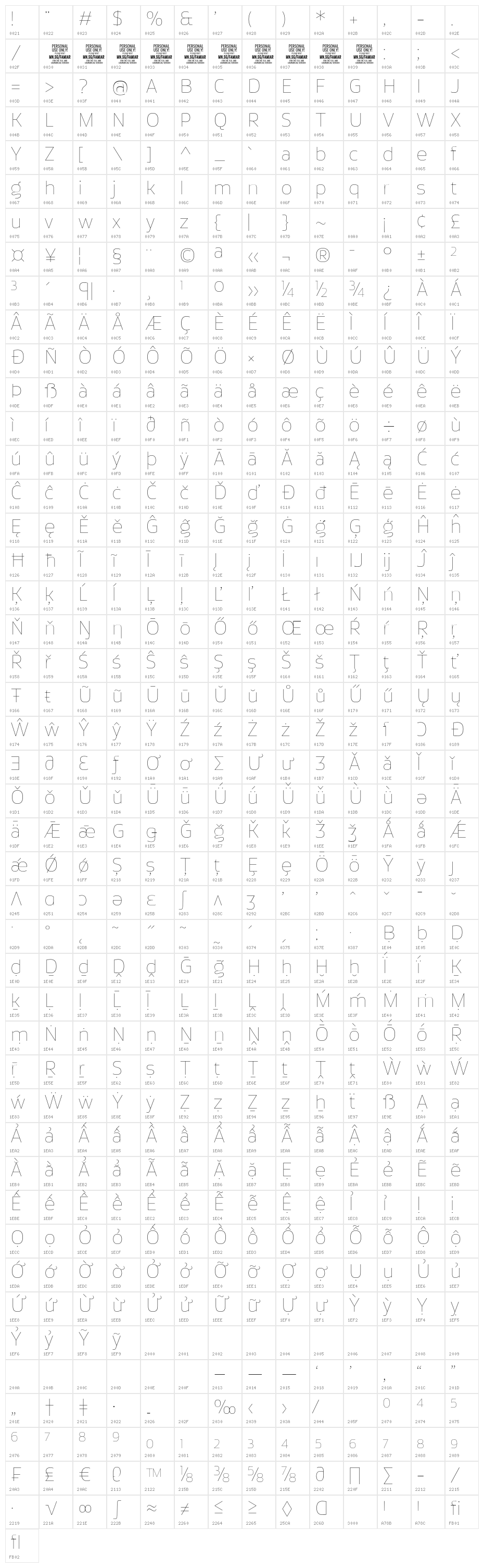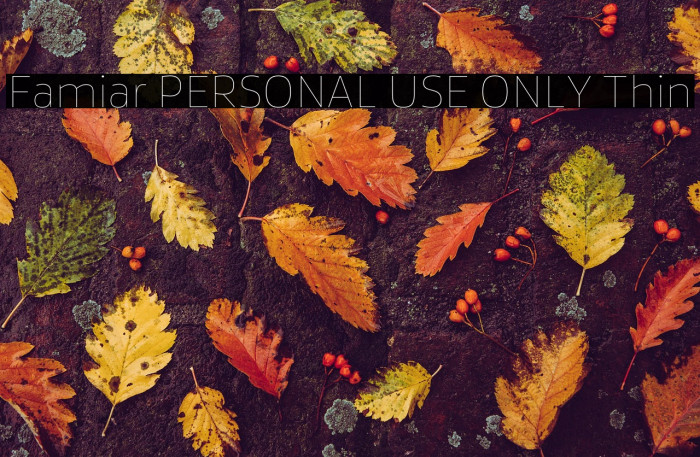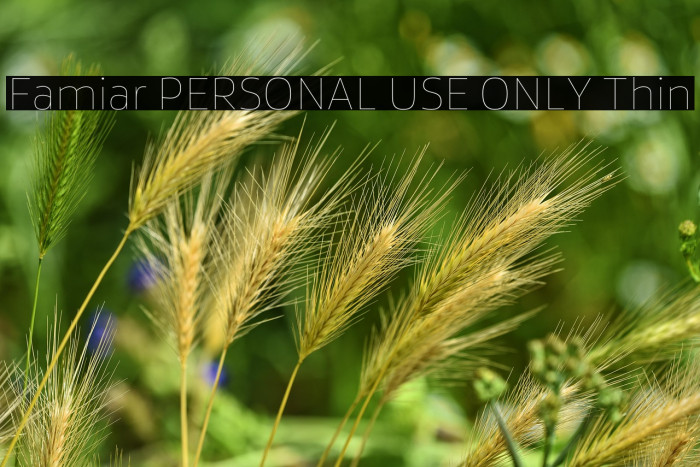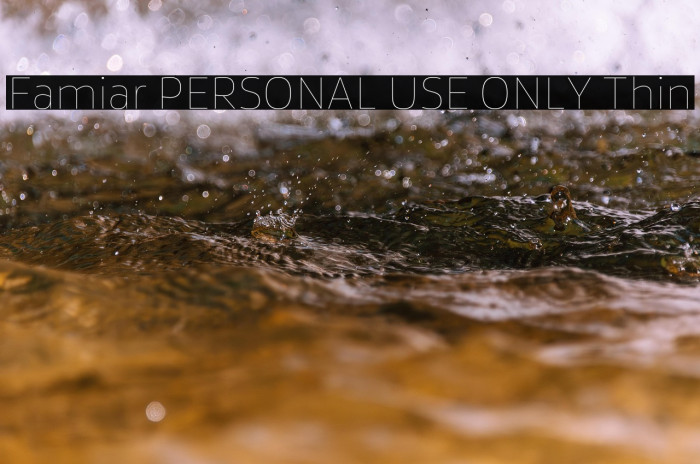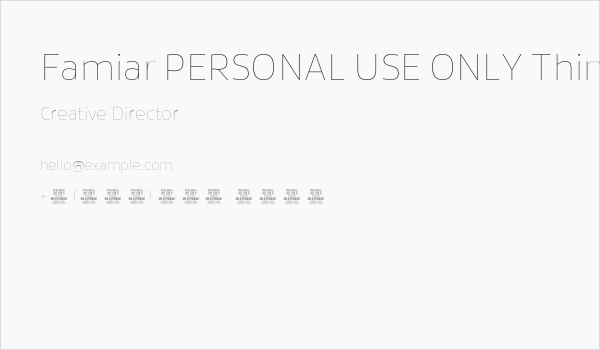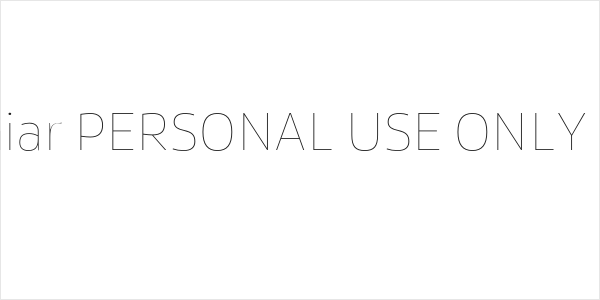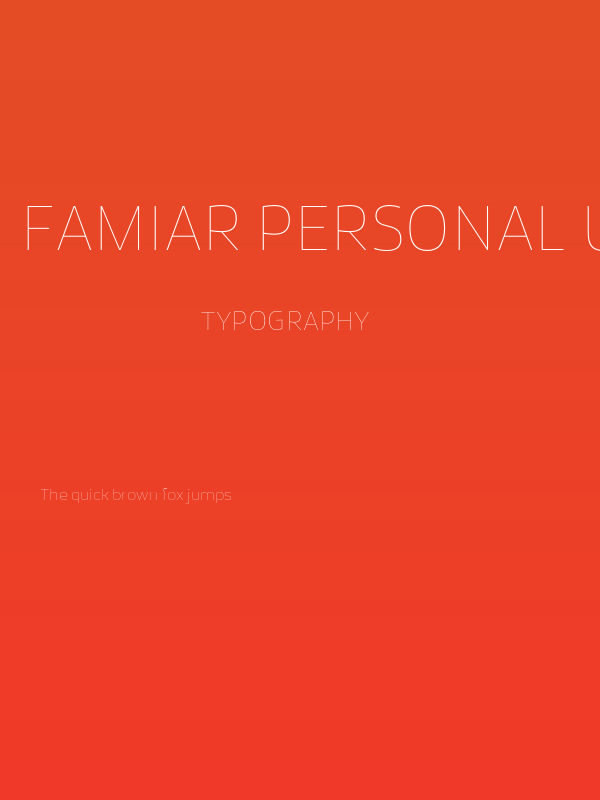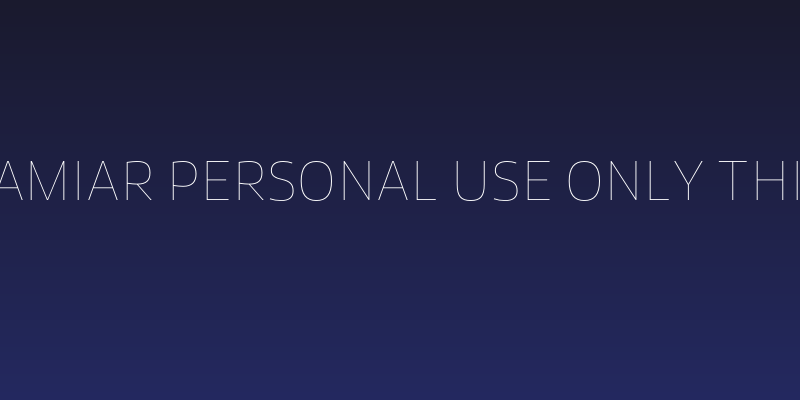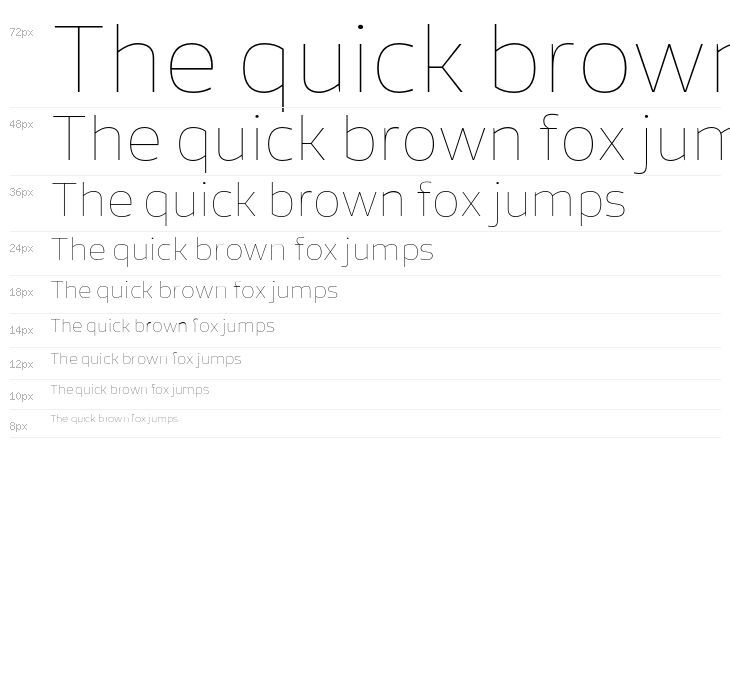
Famiar PERSONAL USE ONLY Thin Font
Famiar PERSONAL USE ONLY Thin Description
This font features a sleek and modern design with thin, clean lines that give it a minimalist and elegant appearance. The characters are evenly spaced, providing a balanced and harmonious look. The uppercase and lowercase letters maintain a consistent style, with smooth curves and straight lines that create a sense of uniformity. The numerals and special characters are designed to match the overall aesthetic, ensuring a cohesive look across all text elements. This font's simplicity and clarity make it highly versatile for various design applications.